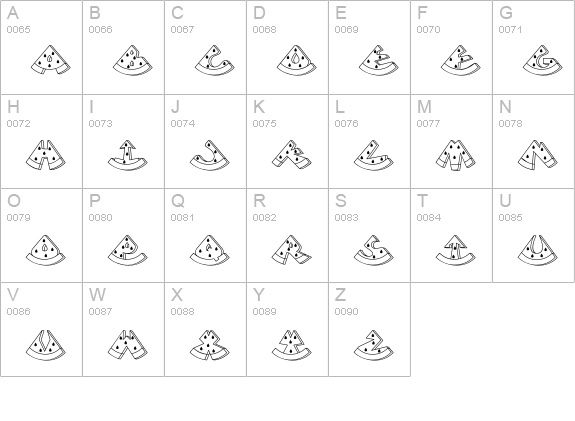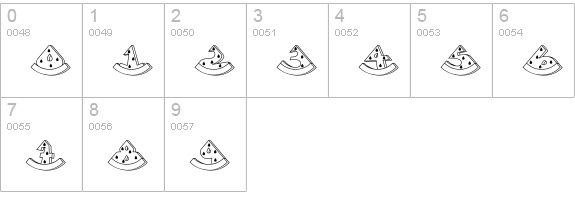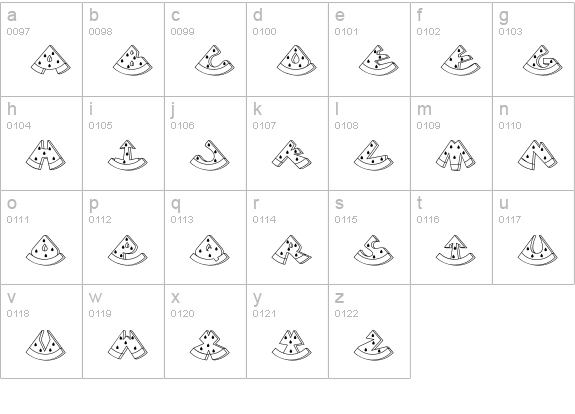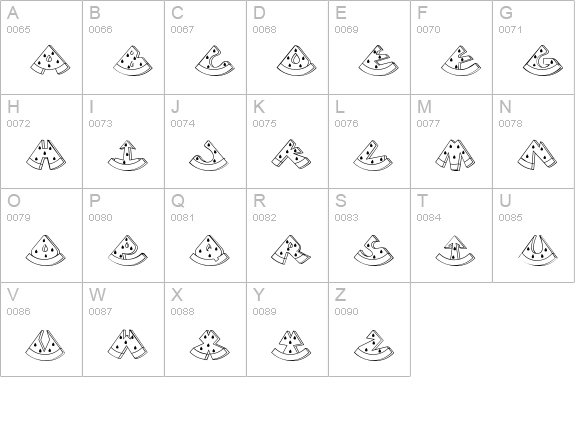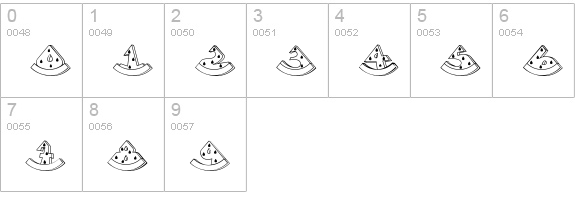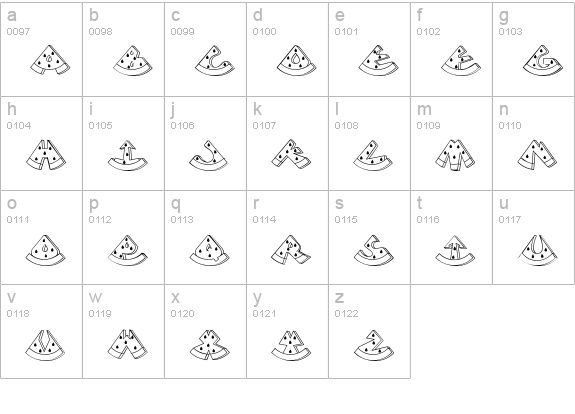
Accent Watermelon font is a charming and playful typeface that exudes a fresh and vibrant energy, perfect for adding a fun twist to your design projects. This delightful font features rounded edges and a whimsical style that evokes the feeling of a juicy watermelon on a hot summer day. The unique design of Accent Watermelon font is sure to make your text stand out and leave a lasting impression on your audience. The best part is that Accent Watermelon font is completely free to download at FontsMarket.com, making it easily accessible for all designers and creatives looking to add a touch of sweetness to their work. Whether you're working on a branding project, social media graphics, invitations, or any other creative endeavor, Accent Watermelon font is the perfect choice to bring a playful and refreshing vibe to your designs. Download this delightful font today and let your creativity flow with the sweet and juicy charm of Accent Watermelon.